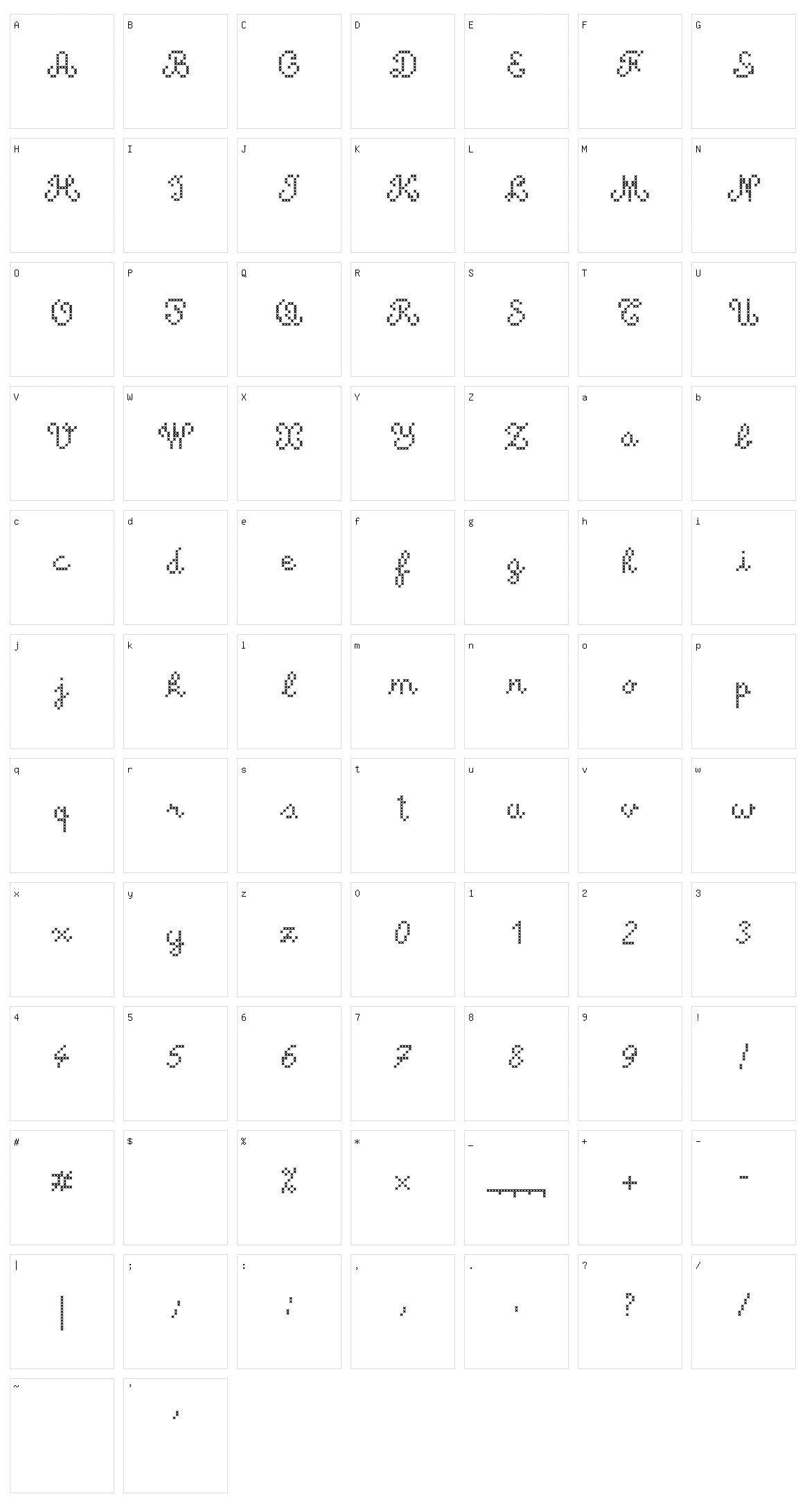
ACSF-Expressive are two similar cursive cross-stitch fonts designed by P. Baudin.
ACSF-Expressive is a Unicode typeface that supports languages that use the Latin
script and requires the OpenType feature ccmp in addition to the classic
kerning and ligature features.
Since the fonts contain a lot of ligatures, they support partially the Latin-1
Unicode range. The fonts are incomplete but contains the letters used in most
alphabets of European Latin languages (diacritic characters included), Czech
letters with inverted hat, the German eszett ligature and specific letters of
some Scandinave alphabets.
The fonts contains some special characters:
- `~`: 1pt space
- `_`: 20pt of cross stiches
- `$`: cuts a ligature (including kerning) and doesn't introduce any space.
- Initial design of ACSF-Expressive fonts derived from cross-stitch charts
published before 1930.